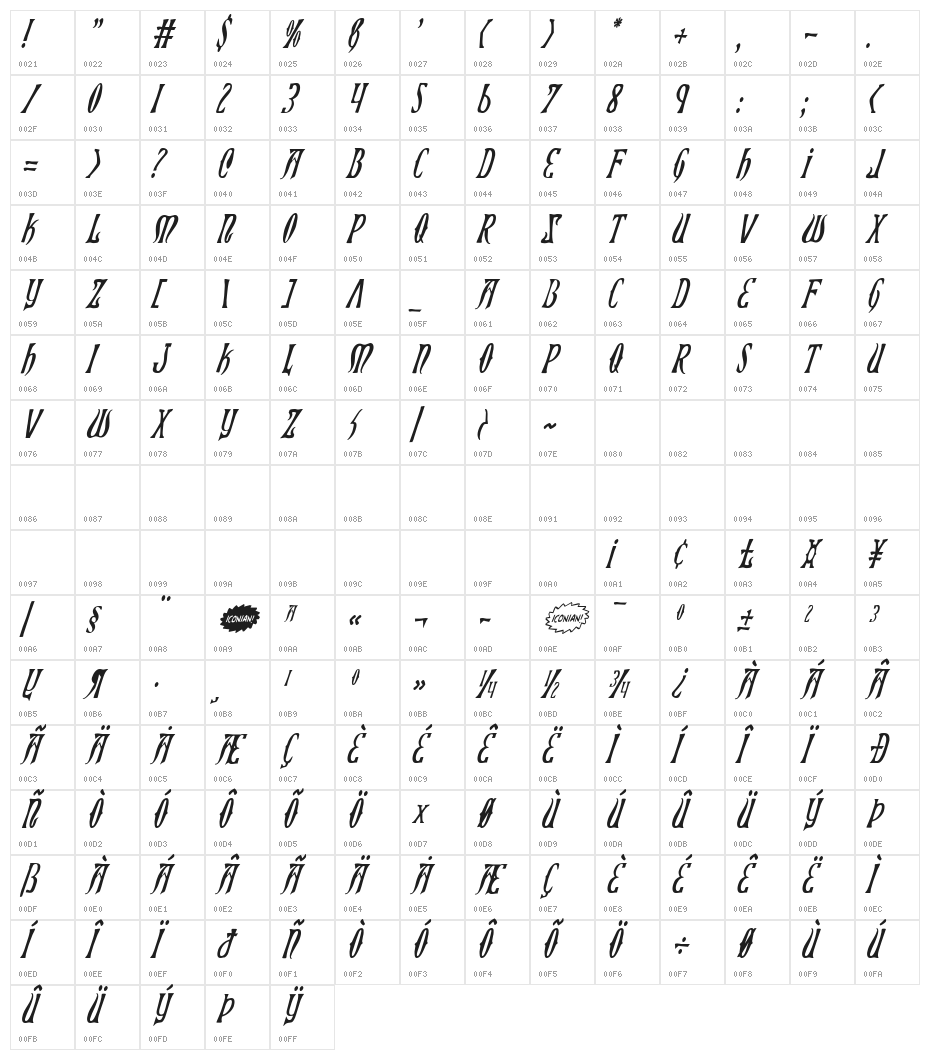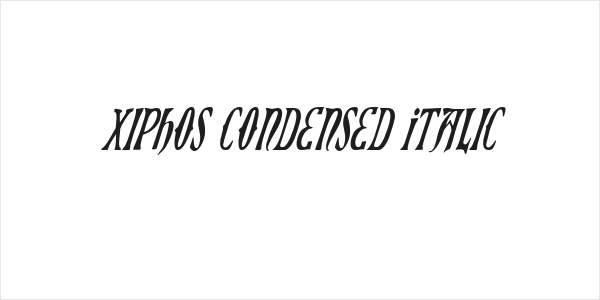
Xiphos Condensed Italic Font
Xiphos Condensed Italic Description
This font features a dynamic and bold style with a condensed and italicized form. The letters are elongated with sharp, angular edges, giving it a striking and energetic appearance. The uppercase and lowercase characters maintain a consistent slant, enhancing the italic effect. Numbers and special characters are designed to match the overall aesthetic, with a unique flair that makes them stand out. The font's condensed nature allows for efficient use of space, making it suitable for impactful headlines and titles. Its high contrast between thick and thin strokes adds to its dramatic and eye-catching look.